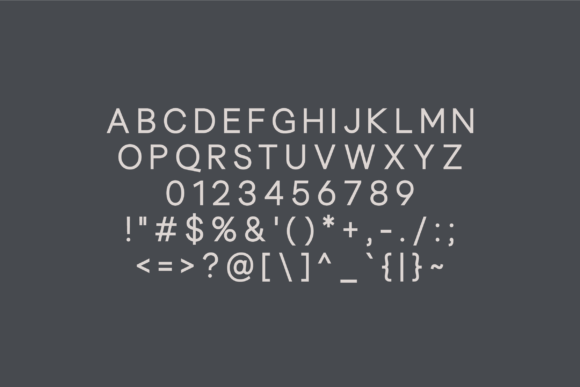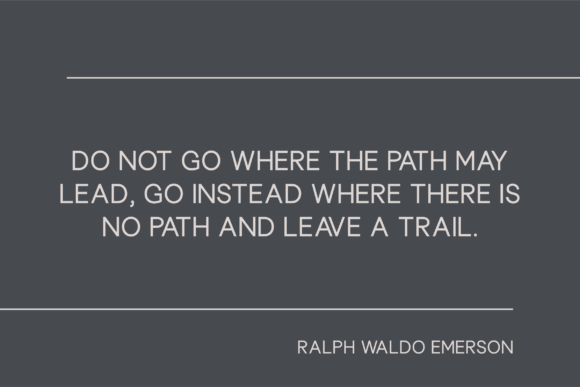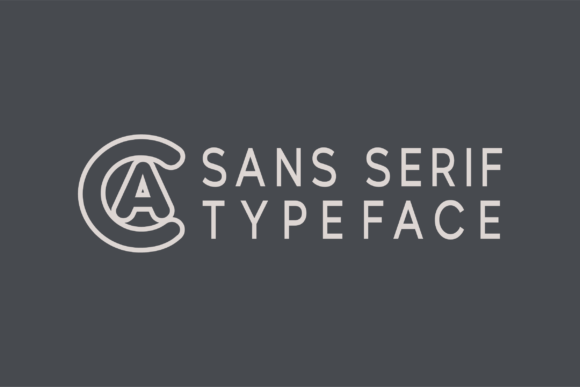
Introduction to Callisto Font
Presenting Callisto – a contemporary, sophisticated sans serif font.
Crafted with versatility in mind, Callisto comprises uppercase letters, digits 0-9 along with a selection of punctuations and symbols Styled in a modern aesthetic, it serves as an ideal fit for logos, wedding invites, notable quotes, alluring advertisements, print articles, stylish magazines and much more.
Callisto Font offers exceptional quality and versatility, making it a valuable addition to your design toolkit. Whether you’re creating for personal projects or commercial use, Callisto Font delivers professional results.